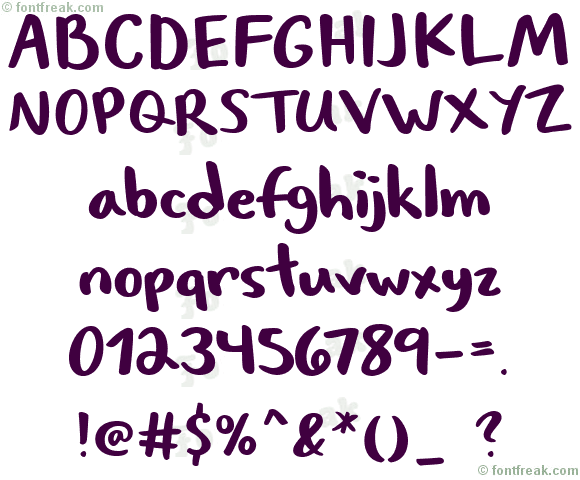
Texas Rider
About Texas Rider
The Texas Rider font by Misti Hammers is a captivating display typeface that exudes a playful, adventurous spirit. Its handwritten style features a bold stroke weight that creates an eye-catching presence, while the fluid curves and slightly irregular forms lend an organic feel. This unique font showcases moderate contrast between thick and thin strokes, which adds depth and character. The generous letter spacing enhances legibility, making it suitable for various design contexts. Decorative elements, such as the whimsical loops and playful tails, contribute to its charm, perfect for projects that aim to evoke a sense of fun and creativity.
The Texas Rider font is ideal for a range of applications. It excels in creating vibrant wedding invitations that capture the couple's personality, making each invite feel special and unique. Its lively aesthetic also makes it a great choice for movie posters, particularly for indie films or those with an adventurous theme, where it can reflect the film’s tone effectively. Restaurant menus can benefit from the Texas Rider font, especially in casual dining establishments that wish to convey a friendly atmosphere. Additionally, this font works well for branding materials aimed at small businesses, such as food trucks or outdoor gear shops, where a distinctive identity is crucial.